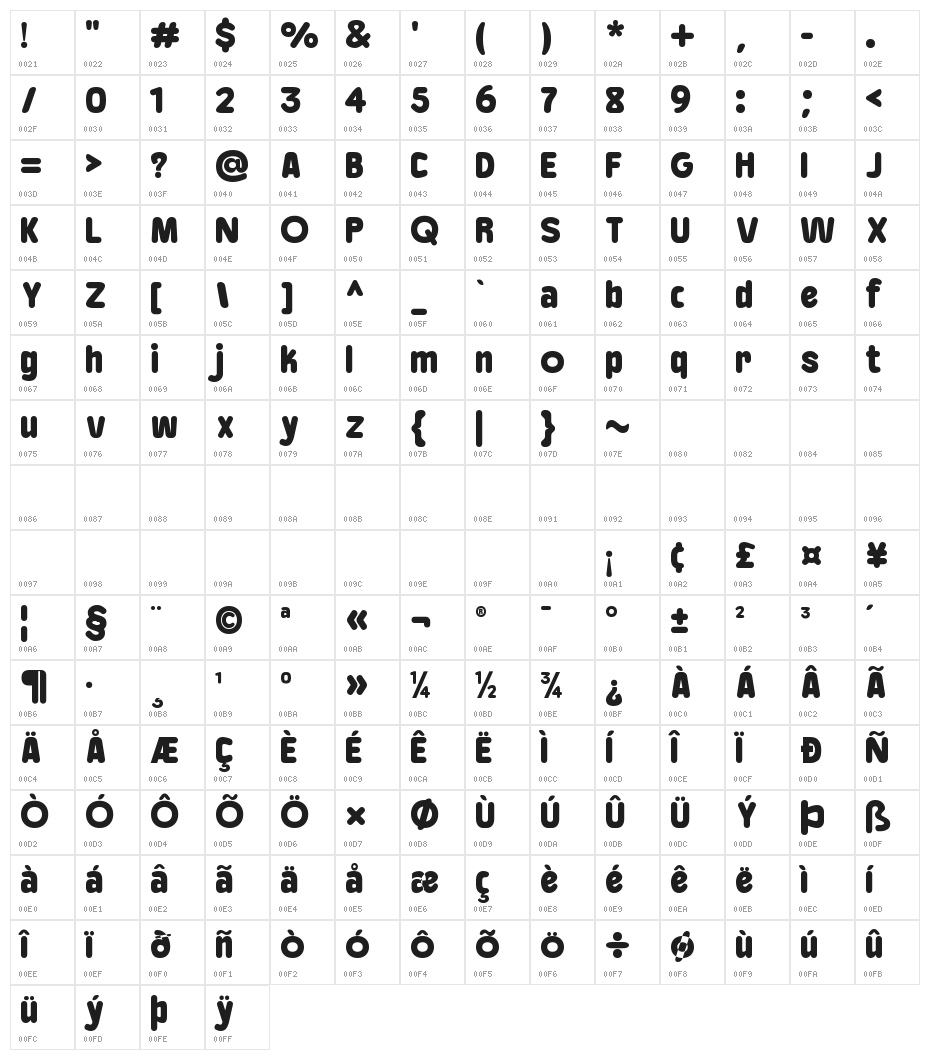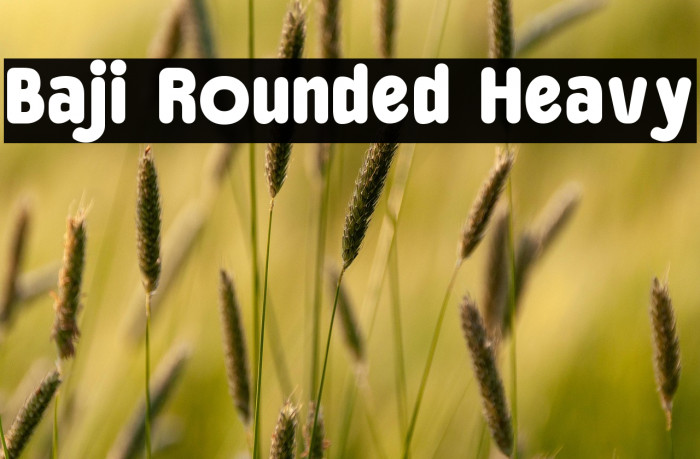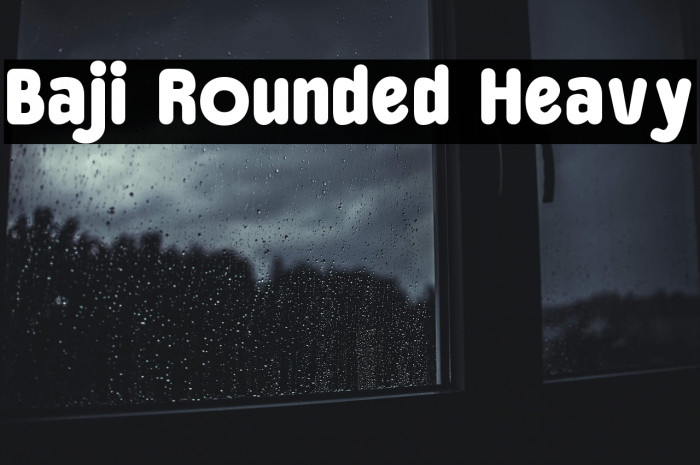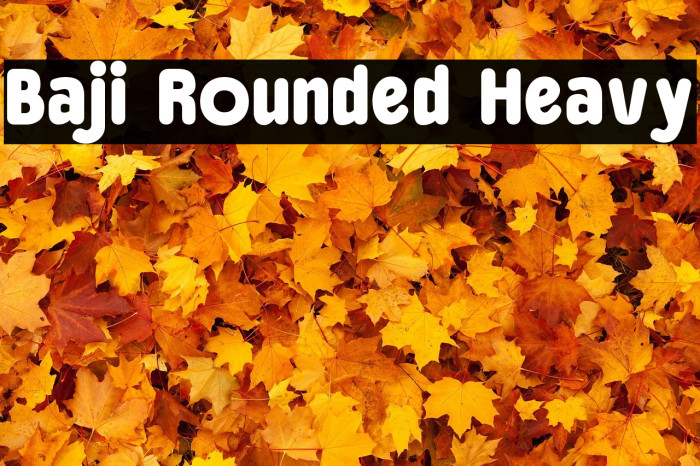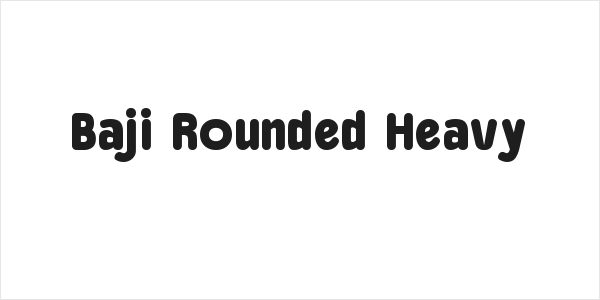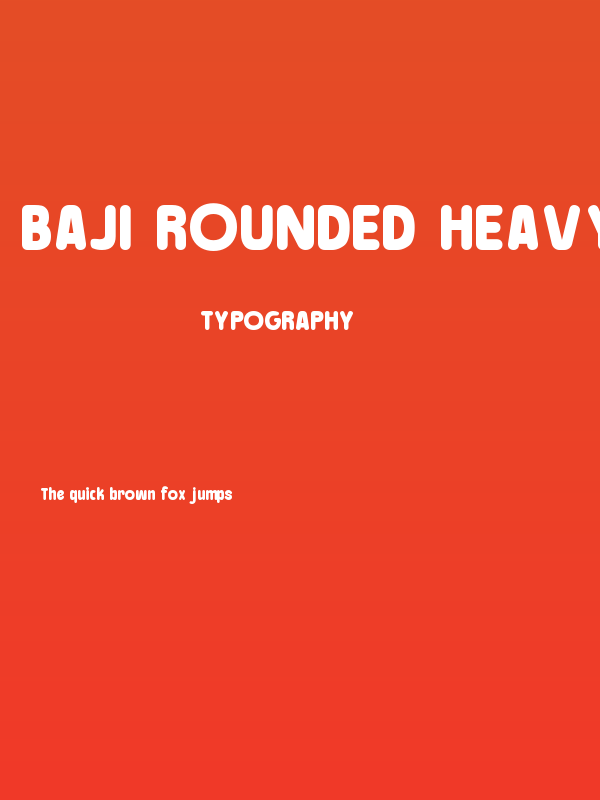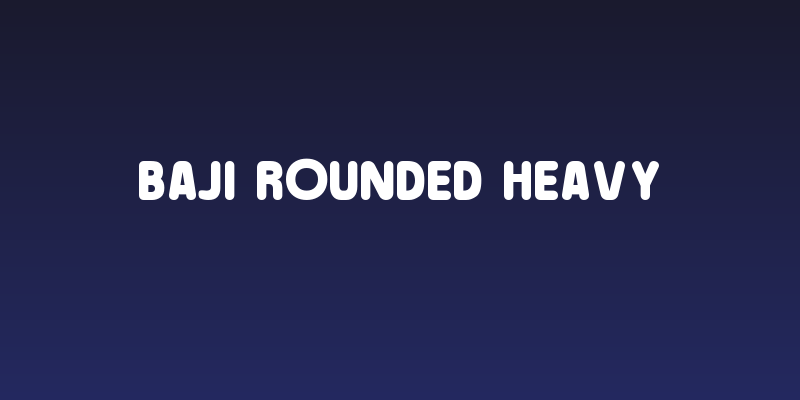
Baji Rounded Heavy Font
Baji Rounded Heavy Description
This font features a bold and rounded style, characterized by its heavy weight and smooth curves. Each letter is crafted with a consistent thickness, giving it a robust and friendly appearance. The rounded edges soften the overall look, making it approachable and versatile for various design needs. The numerals and special characters maintain the same rounded and bold aesthetic, ensuring uniformity across all characters. This font is particularly effective in creating a playful yet strong visual impact.
| Proposed Projects | Ideal for children's books, playful branding, posters, and logos that require a strong yet approachable look. |